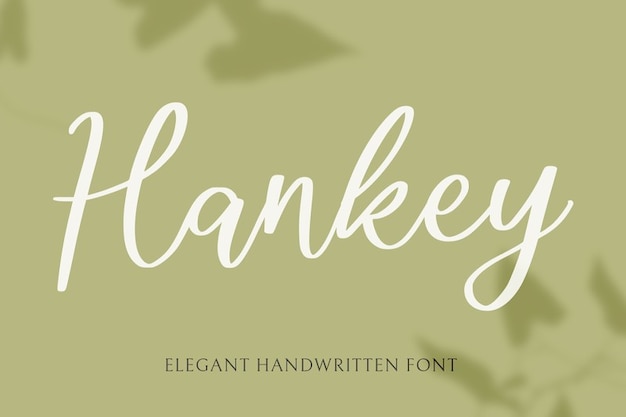
Hankey Font
Hankey - Where handwritten elegance takes center stage. Elevate your designs with this font's graceful lettering that's perfect for adding a touch of sophistication to invitations, cards, or any project where style matters. Hankey turns your words into a work of art, effortlessly blending the beauty of handwritten charm with an air of understated elegance. Your creativity deserves nothing less.